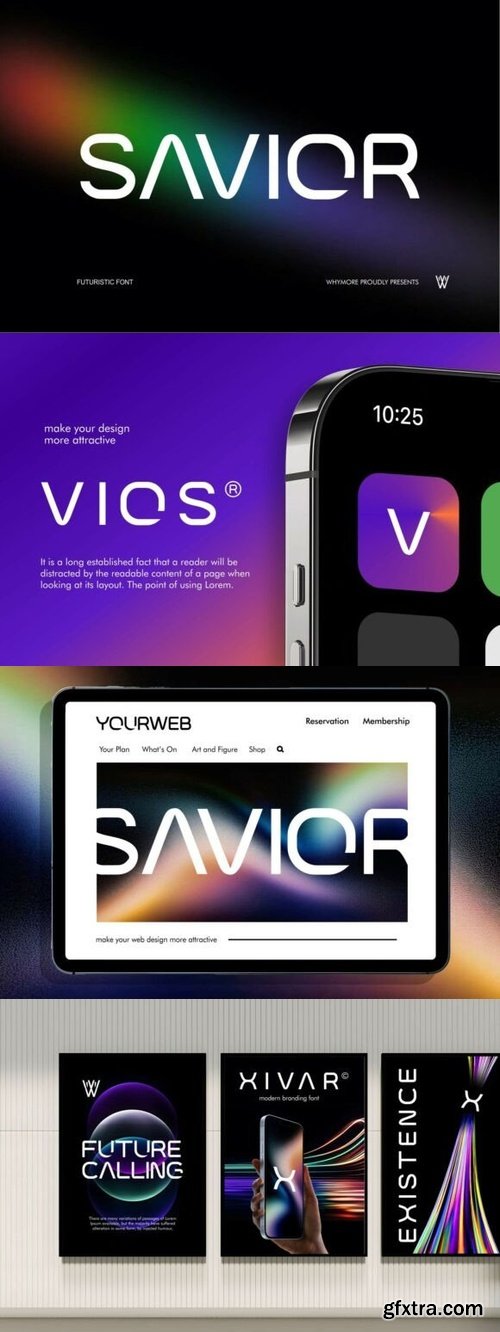
- This font has distinctive characteristics: Futuristic, Techno, Geometric, Clean. A cutting-edge sans serif style with unique curves and cuts that give the impression of advanced technology & modern future. Feels very suitable for the tech world, AI startups, wearable devices, mobile applications, and digital corporate branding.
Main Uses: Technology Logos & Branding Ideal for AI, fintech, blockchain, VR, cybersecurity, green technology, space technology companies. Stationery & Corporate Identity Build premium imagery on business cards, company profiles, startup pitch decks, branding kits. Apps & UI/UX Interfaces Great for mobile app icons, dashboard designs, smartwatch displays, smart home UI. Futuristic Ads & Posters For tech conference events, innovation fairs, esports tournaments, digital campaigns. Esports & Sci-Fi Projects Suitable for esports logos, game titles, sci-fi movies, VR experience visual identities.